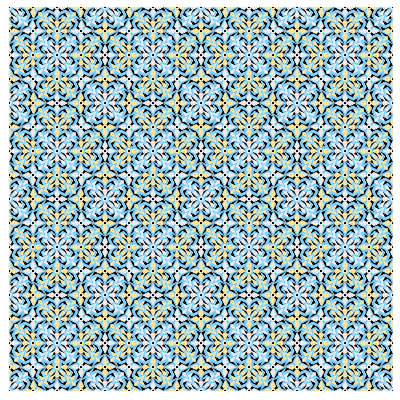
Fantastic pattern!!! ❤️❤️❤️
It has reminded me of the tiles that we have used here for many years.
all those can be fontstructed now!
You are so good at this.
Very pretty. 10/10